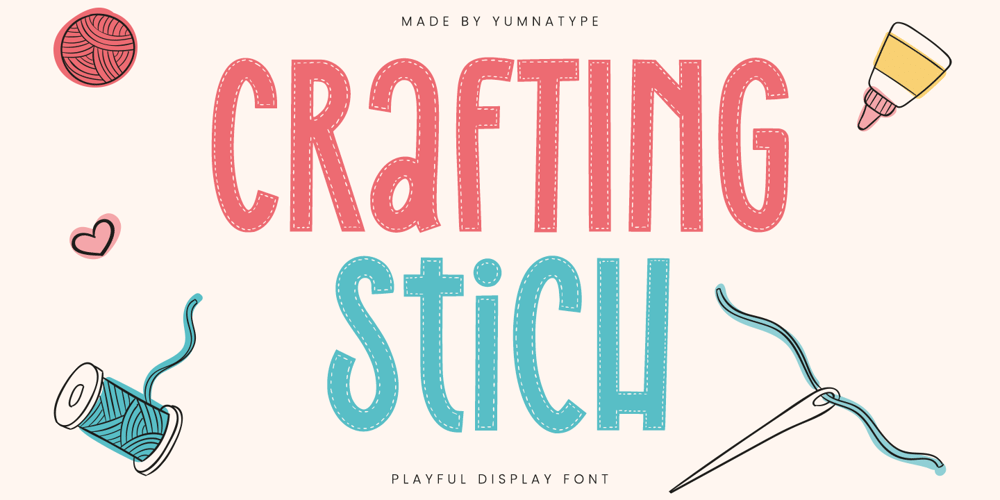
Crafting Stich Font Family was designed by Donis Miftahudin and published by Yumna Type. Crafting Stich contains 1 styles and family package options. Crafting Stitch is a delicate and charming display font designed with a light weight that exudes elegance. Its condensed style allows for efficient use of space, making it perfect for tight layouts and intricate designs. The low contrast between strokes ensures a smooth appearance, enhancing its refined look. The rounded shapes add a soft touch, evoking a sense of approachability. In addition, enjoy the features here.Features: Multilingual Supports PUA Encoded Numerals and Punctuations Crafting Stitch fits in headlines, logos, posters, flyers, branding materials, print media, editorial layouts, and many more designs. Find out more ways to use this font by taking a look at the font preview.Thanks for purchasing our fonts. Hopefully, you have a great time using our font. Feel free to contact us anytime for further information or when you have trouble with the font. Thanks a lot and happy designing.